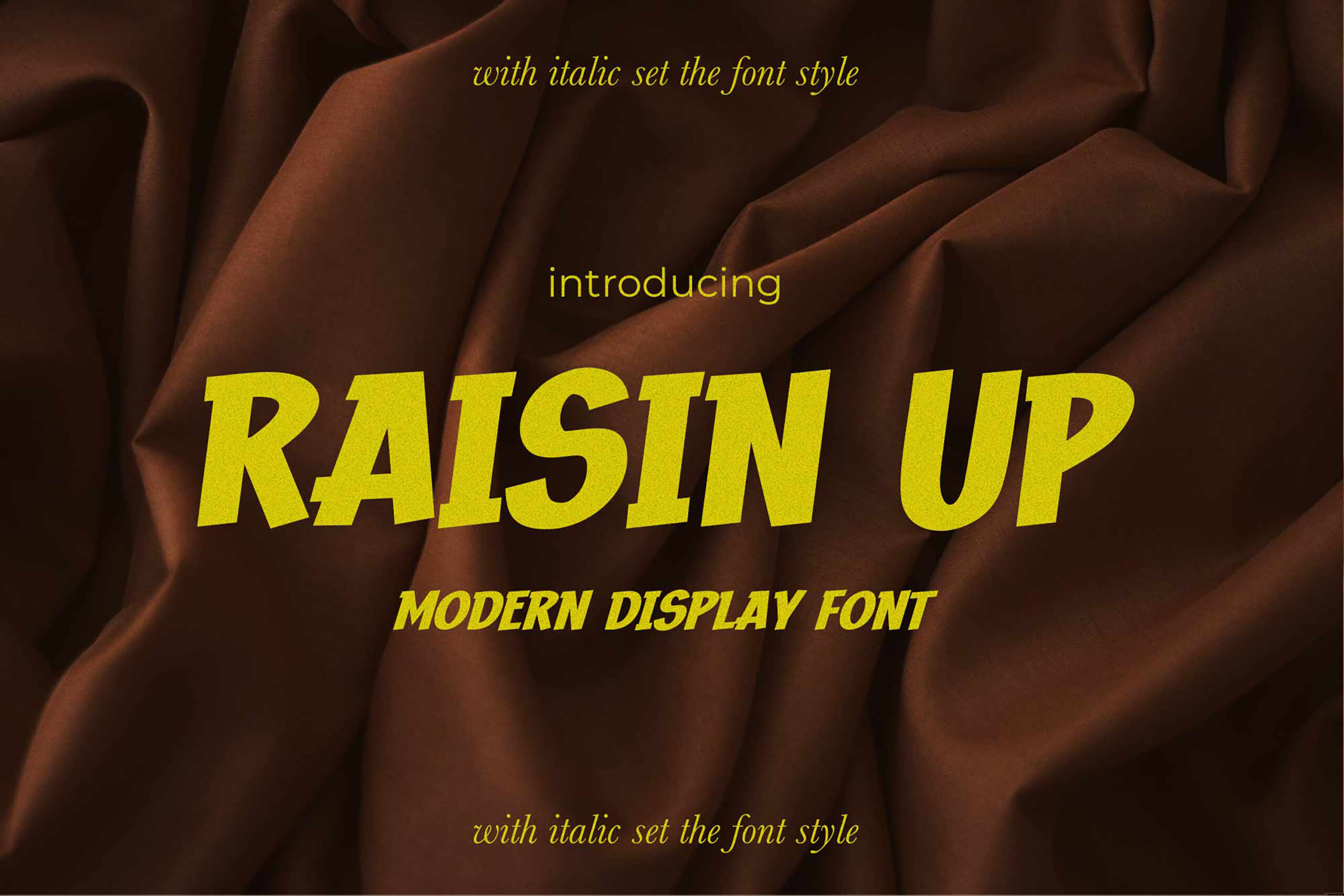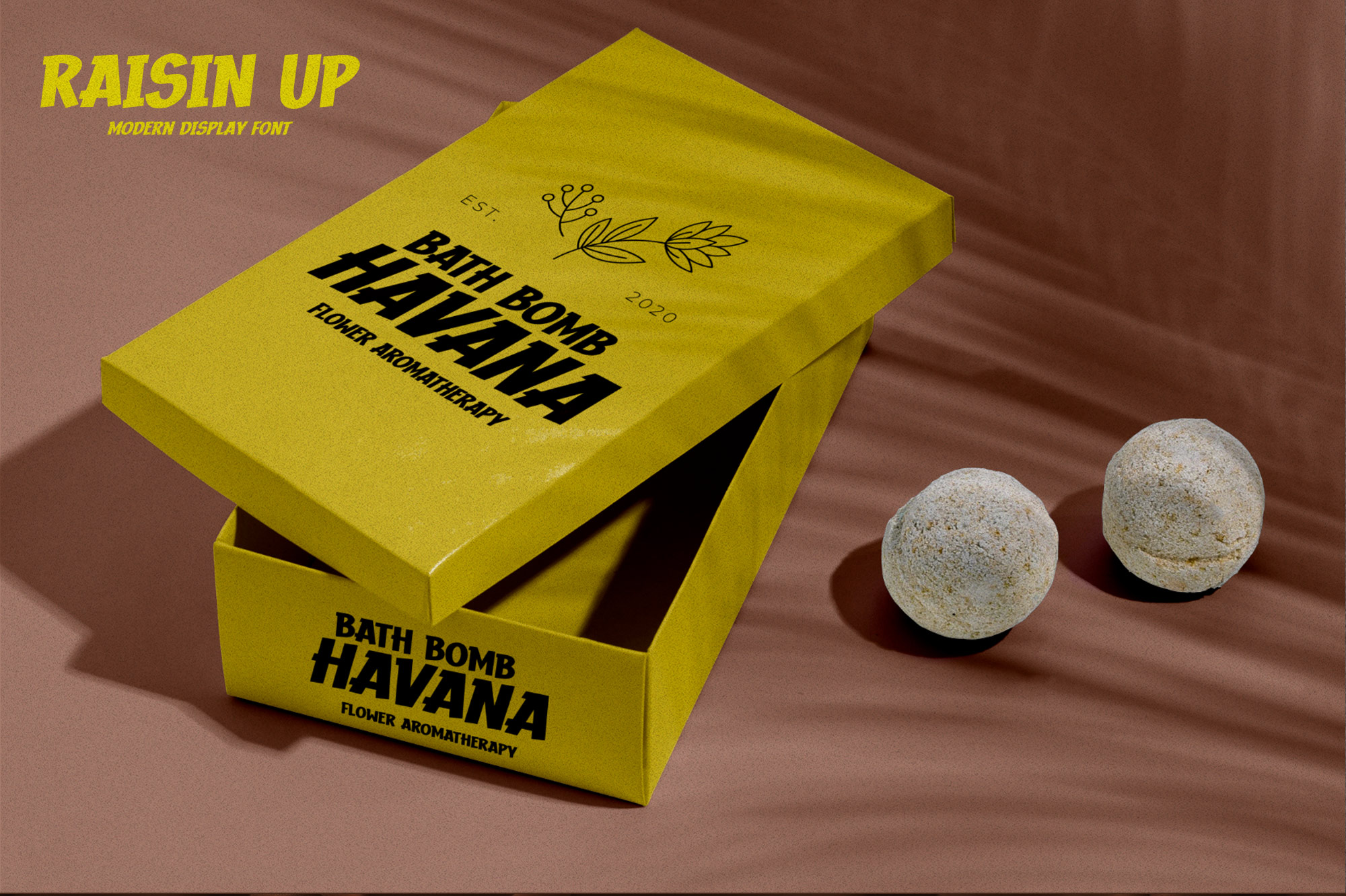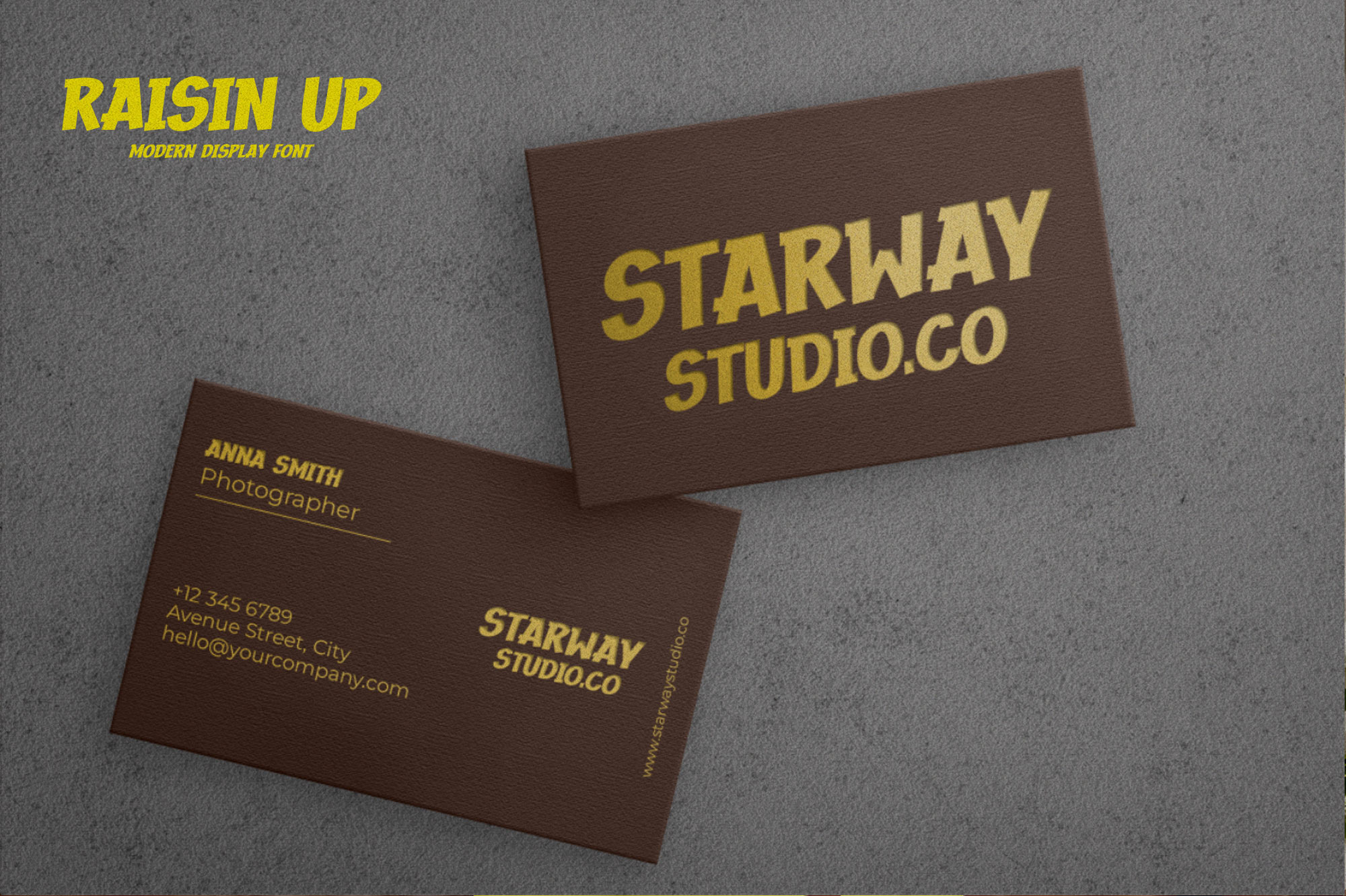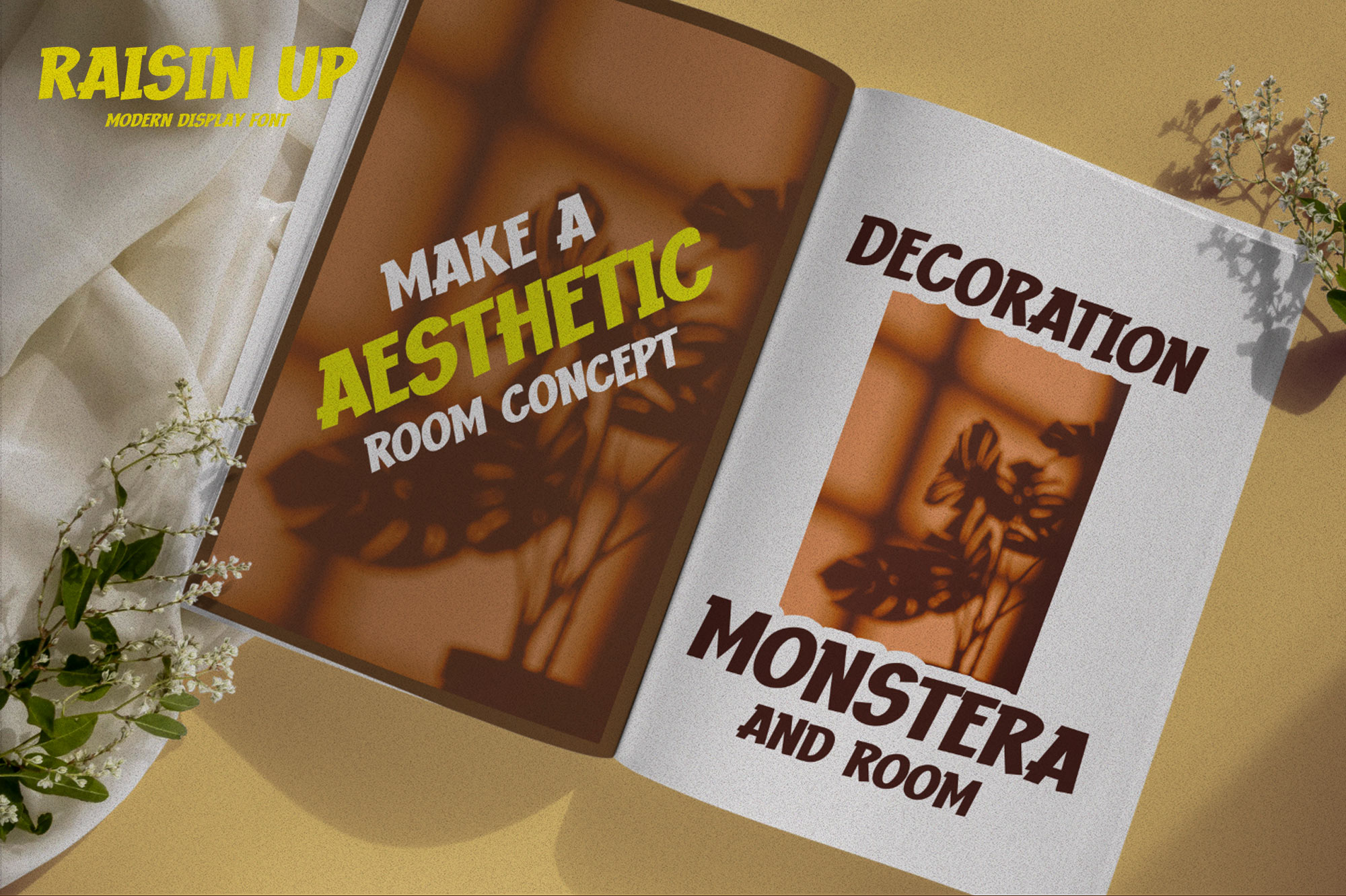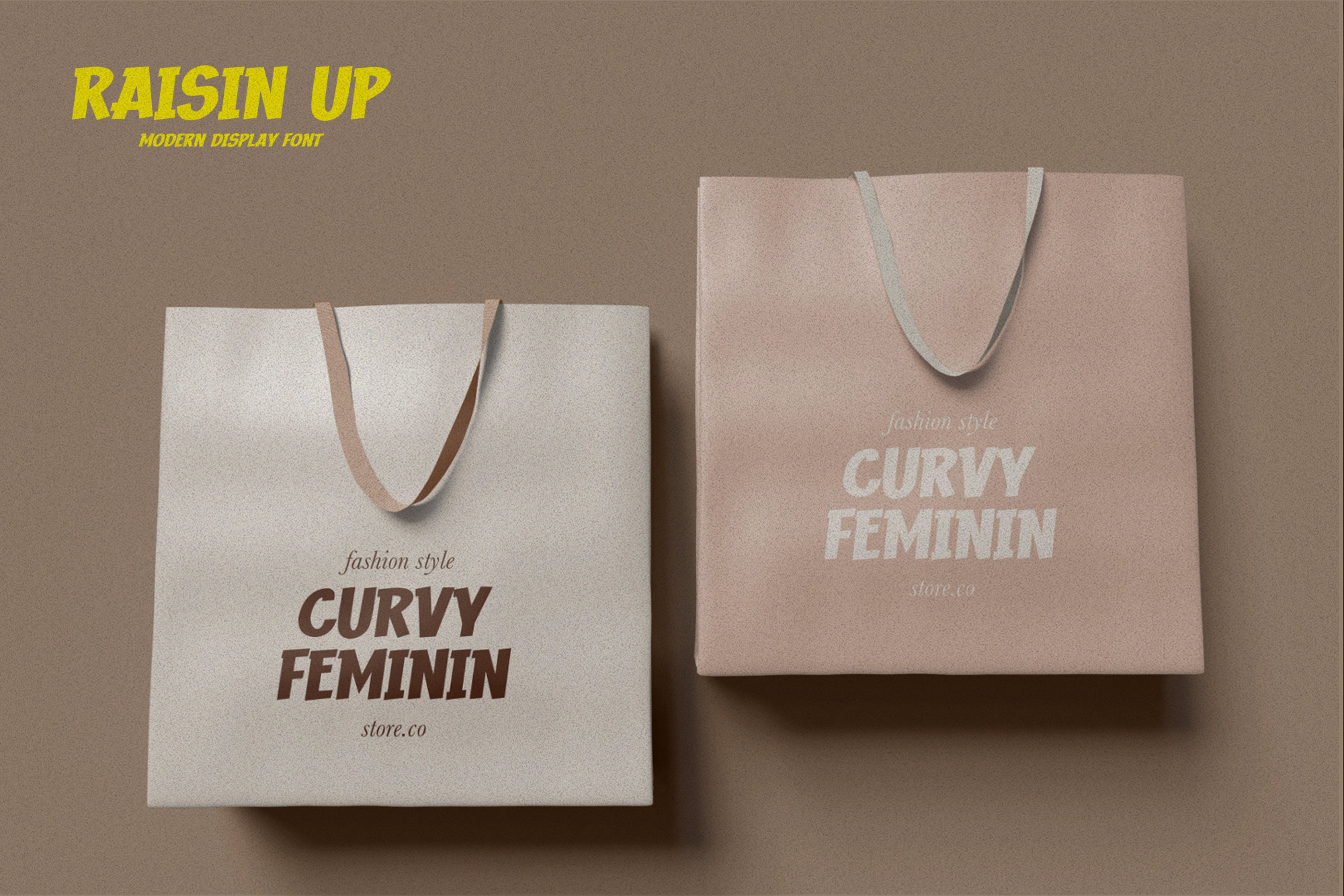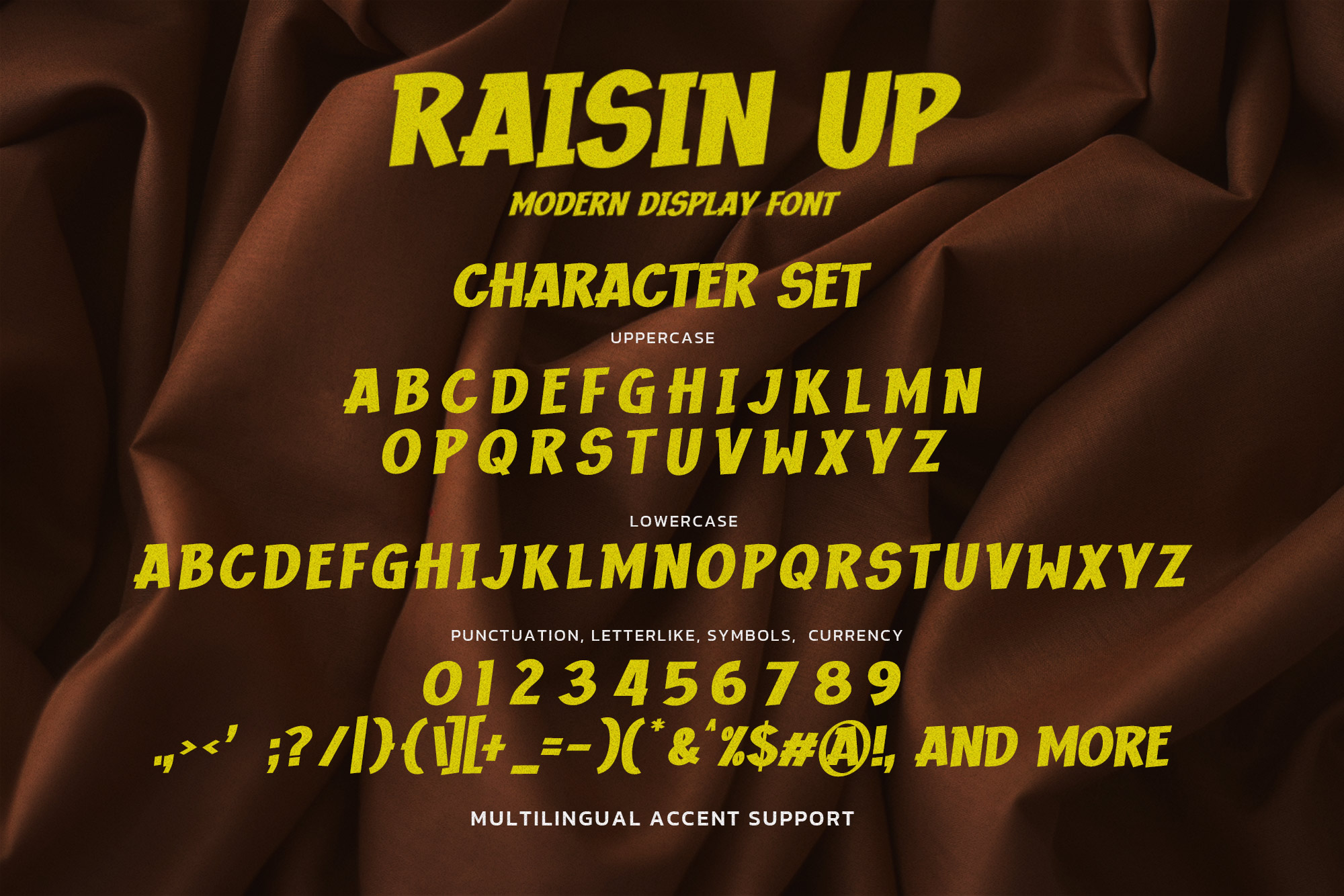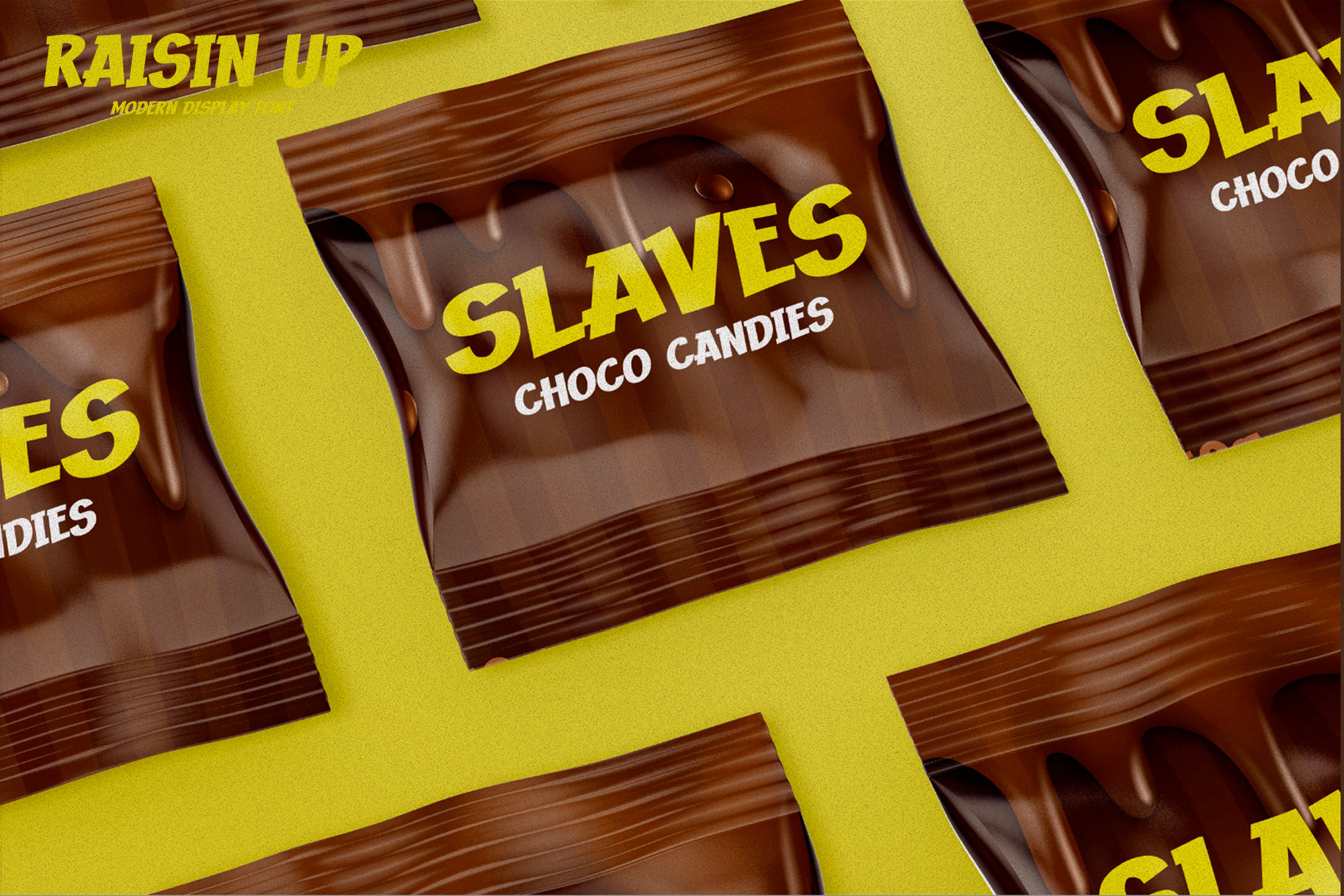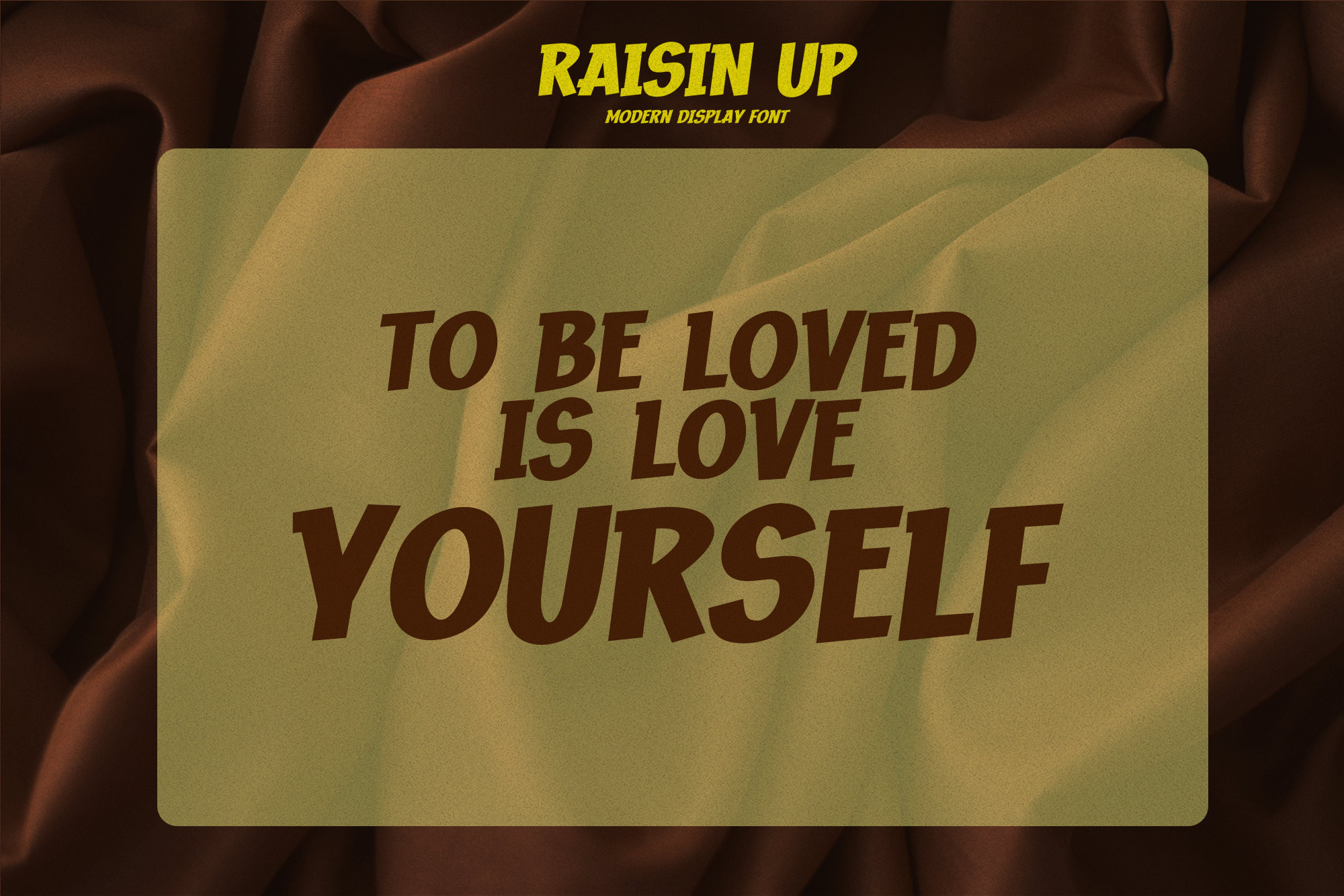
RAISIN UP – Modern Display Font is a Modern font that is written casually and quickly.
That is why RAISIN UP has a authentic, and unique characteristic more natural look. Baby Stringrays Perfect for logo designs, branding projects, Logo design,Quotes product packaging and another Project that authentic font.